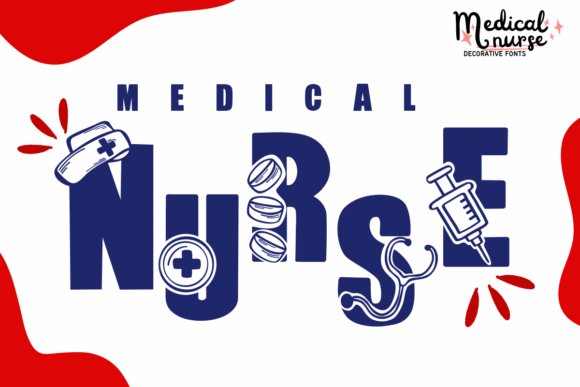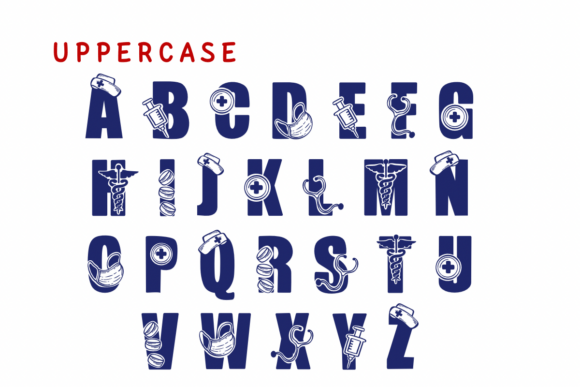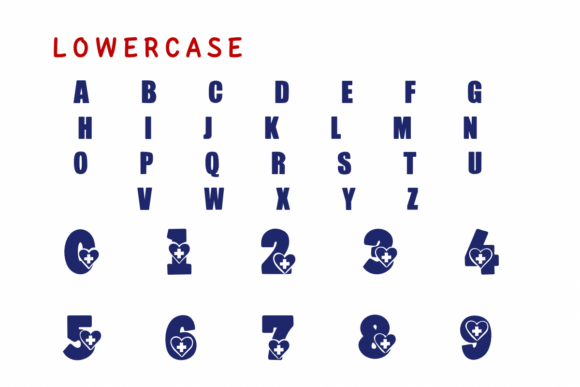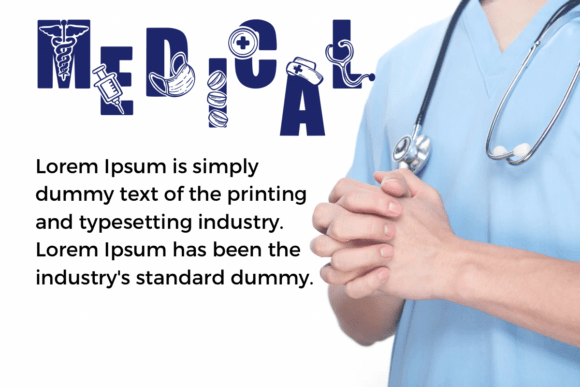
Medical Nurse Font
About the Medical Nurse Font
Step up your design game with Medical Nurse Font, a font that exudes confidence and style. Medical nurse is a Decorative font. You can use it for taking notes, writing a diary, or making greeting cards. However, you can still use it for other designs, such as banners, content, mugs, cards, shirts, stationery, social media posts, and more!
Medical Nurse’s decorative style is best suited for headlines, short text blocks on posters or packaging, and branding elements requiring a touch of personality. It works well for projects emphasizing care, empathy, or a handcrafted feel. However, its decorative nature makes it unsuitable for body text or UI elements where readability is paramount; long paragraphs will be difficult to read.
Consider pairing Medical Nurse with a clean sans-serif like Open Sans for a balanced contrast, or a more geometric sans-serif such as Futura for a modern feel. For a softer look, a script font with gentle curves could complement it. Avoid pairing it with other heavily decorative fonts to prevent visual clutter.
The overall personality of Medical Nurse is friendly and approachable, yet possesses a distinct, slightly whimsical charm. This makes it ideal for brands related to healthcare, childcare, or crafting, but less appropriate for projects requiring a sophisticated or strictly professional aesthetic.
Medical Nurse Font Usage Examples
Medical Nurse Font Example